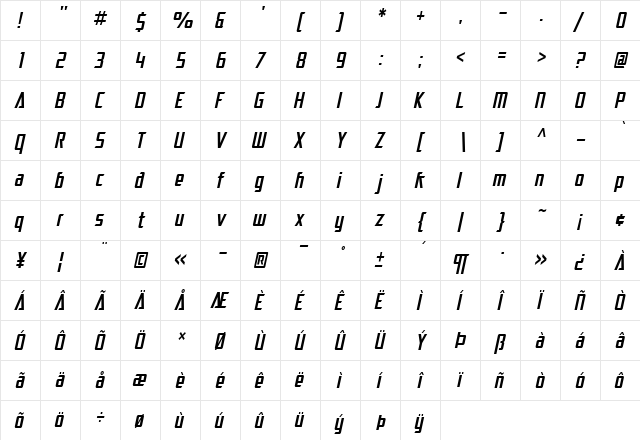
SF Electrotome Condensed Oblique Font Preview
Design Context for SF Electrotome Condensed Typeface
SF Electrotome Condensed offers clean, dependable letterforms without strong stylistic allegiance, making it a practical choice for designers who need flexibility. The slanted form adds forward momentum and visual energy. The condensed width makes it efficient for tight spaces without sacrificing legibility.
Pro Tip: Use SF Electrotome Condensed for emphasis, pull quotes, and subheadings where its slanted energy can add rhythm to the layout.